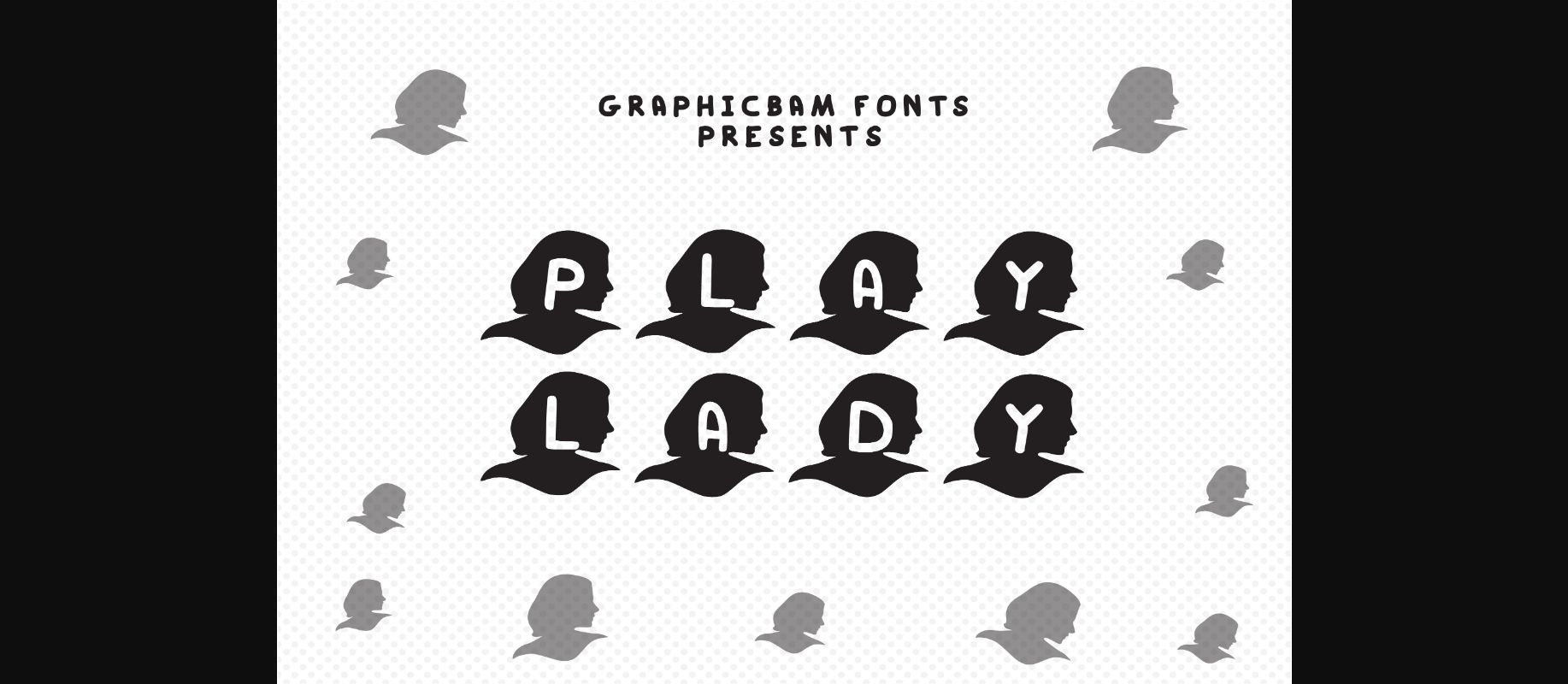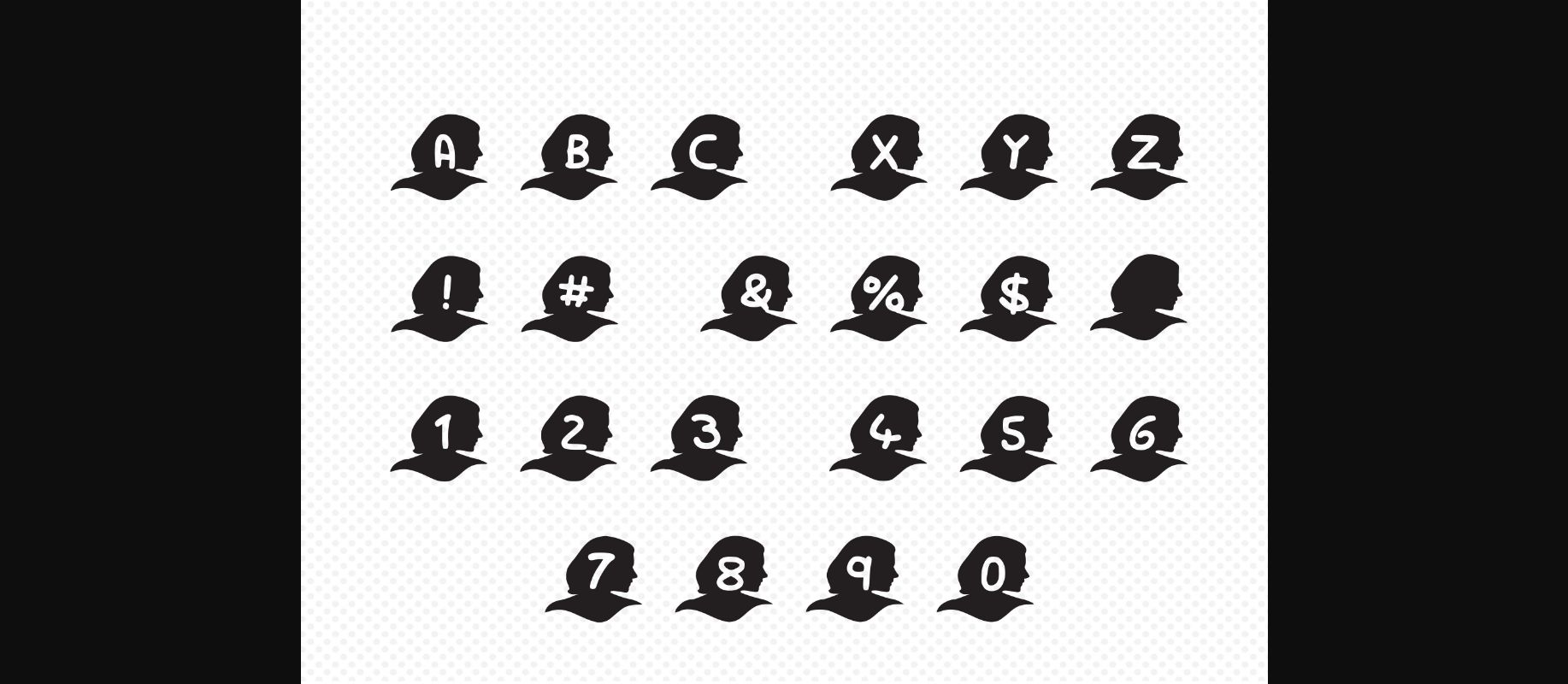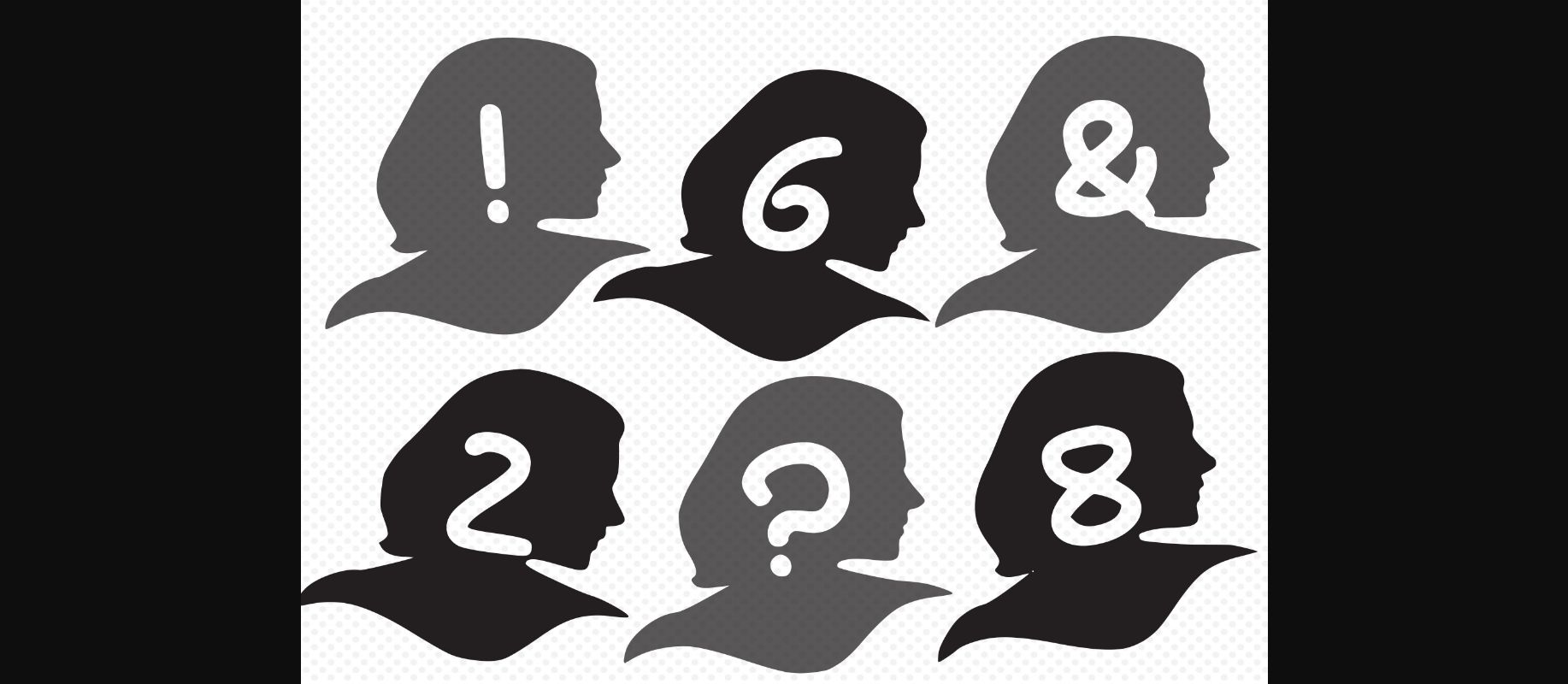
Play Lady Font
About Play Lady Font
Play Lady is a decorative font that will impress you with its charm and sophistication. Use it for creative projects that need uniquely shaped feminine typography!